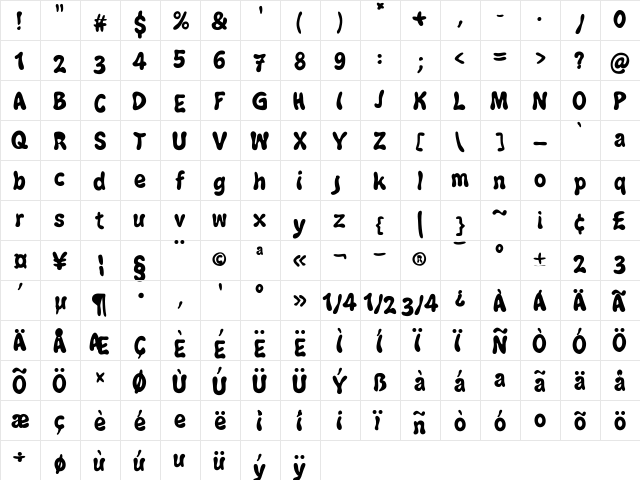
Jazz Ball Regular
| Foundry | Cyril Mikhailov |
| Designer | Cyril Mikhailov |
Design Context for Jazz Ball Typeface
Jazz Ball is a composed and adaptable typeface that performs quietly and consistently across a wide range of design contexts.